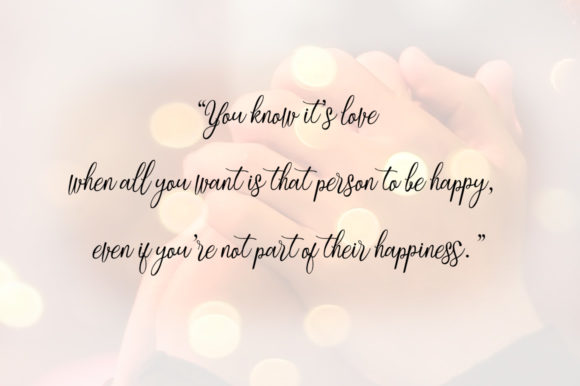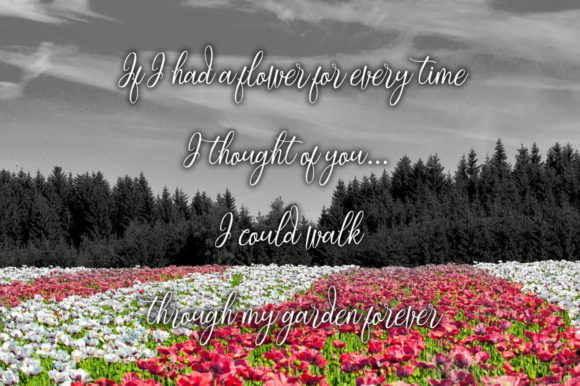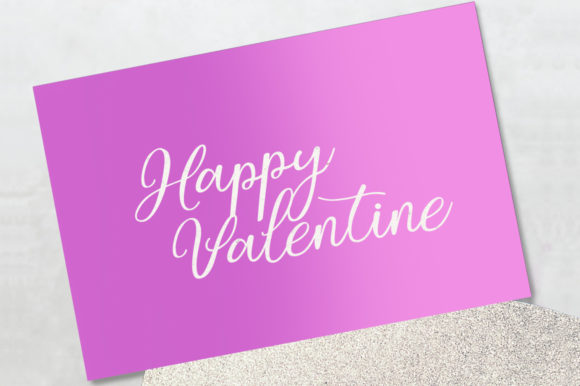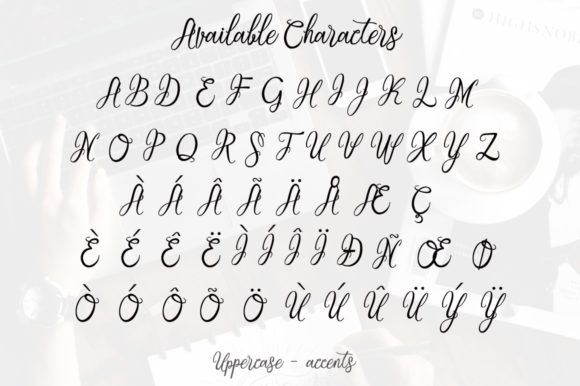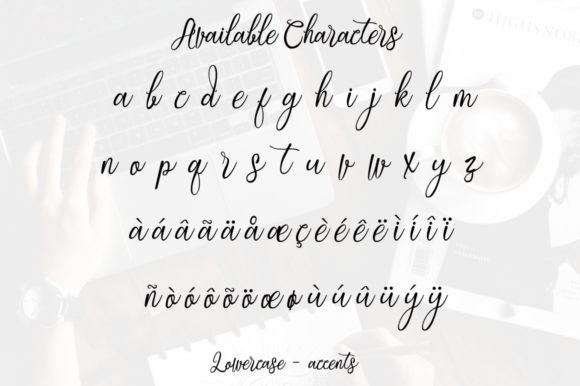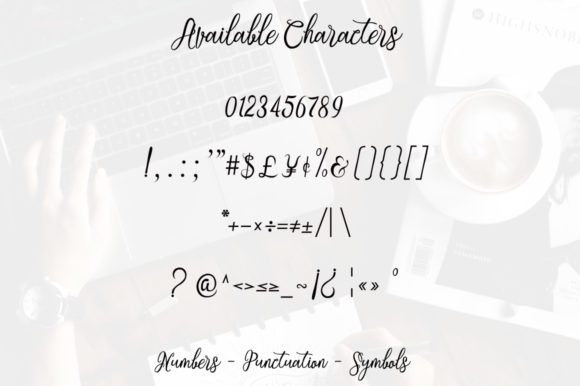
Introduction to Manjha Font Font
Fonts play a crucial role in design, and the Manjha Font font is a typeface that brings both character and versatility to any project. Whether you’re working on a branding project, a website, or a print design, the Manjha Font font offers a unique style that can elevate your work.
Manjha simplifies elegance into one truly outstanding handwritten font.
It maintains its classy calligraphic influences while feeling contemporary and fresh This versatility will appeal to a wide range of crafty ideas, from letterheads and titles, to stationery.
Key Features of Manjha Font Font
Why Choose Manjha Font Font?
The Manjha Font font is more than just a typeface – it’s a design tool that helps you communicate your message with style and clarity. Its unique character set and versatile design make it suitable for a wide range of applications, from elegant invitations to bold headlines.
With its carefully crafted letterforms and balanced proportions, the Manjha Font font ensures readability and visual appeal across all mediums.
What makes Manjha Font font special?
The Manjha Font font stands out with its unique design, exceptional readability, and versatility across various design applications.